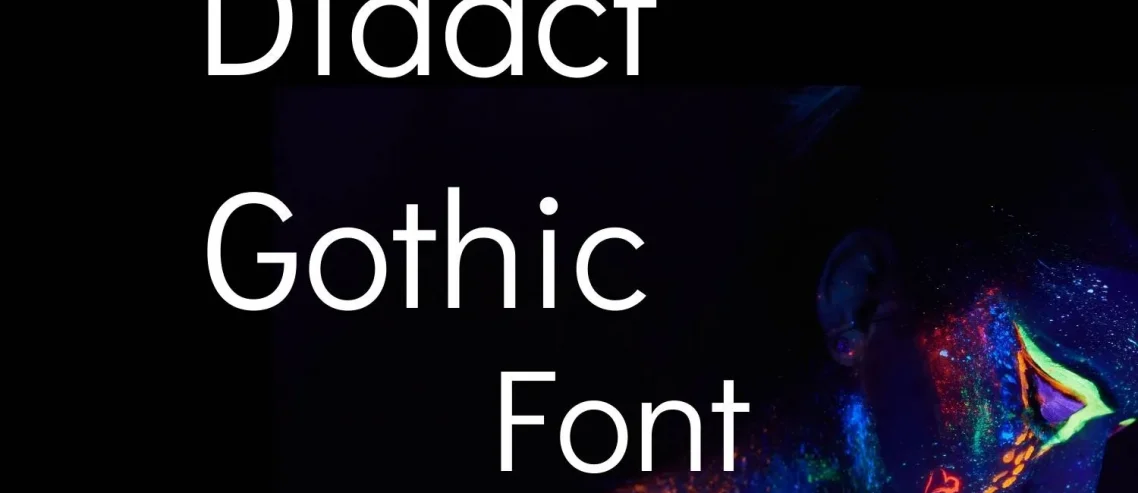
Wild Words Font Free Download
A wild words font is a type of typeface that is designed to look like it has been handwritten. It can be used for titles, headings, and other text elements to create an informal or creative look. This font has become increasingly popular in recent years as people have sought to add more personality to …
Cochin Font Free Download
Cochin Font is a typeface created by French type designer Louis-Nicolas ZĂ©non and released in 1922 by Deberny & Peignot. The design is inspired by 15th-century Venetian typefaces. It is named after the city of Kochi in India, which was formerly known as Cochin. Deberny & Peignot released this Font in a variety of weights, …
Plantagenet Cherokee Font Free Download
Plantagenet Cherokee Font is a free typeface that was created in 2006. The roman typeface is available in three different styles: italic, bold and regular. This typeface was designed by Mike Erickson. It is a casual handwriting style font with nice rounded edges. This typeface was designed to be used in round-trip editing with applications …
Didact Gothic Font Free Download
Didact Gothic Font is a typeface designed by British graphic designer Alan Meeks. It was released in 1991 by Monotype Imaging. The typeface is named after the Greek didactic, meaning “intended for teaching”. The design of this is based on the geometric sans-serifs of the 1920s, such as Futura and Erbar, but has softer features, …
Circular Font Free Download
Circular Font is a font that is filled with circles instead of the usual emojis or letters. Circular Fonts, compared to normal fonts, are filled with circles. These typeface shapes are usually smaller than the regular letters and they act as guides for your eyes when reading text. This typeface is similar to the Hard …
Unica One Font Free Download
Unica One Font is a sans-serif typeface designed by Adrian Frutiger and released in 1983 by Linotype. This font has been digitized for use in the Adobe Originals program and is available as part of Adobe Photoshop, Illustrator, and InDesign. This typeface is licensed by Linotype GmbH. It is available for purchase as part of …